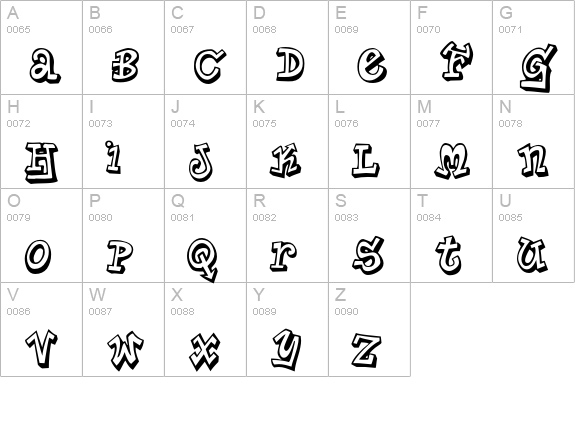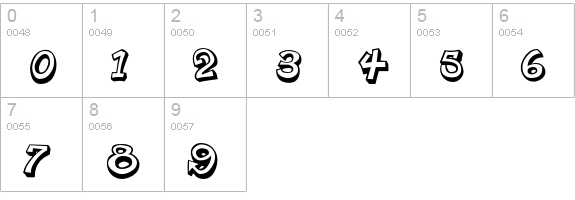
PlanetBenson Font Details
PlanetBenson is a stunning and versatile font that combines elegance with a touch of modernity. Its sleek lines and smooth curves make it perfect for a wide range of design projects, from logos and branding to invitations and advertisements. This font captures attention with its unique and eye-catching letterforms that exude confidence and sophistication. Every character is meticulously crafted to ensure legibility and readability at any size, making it suitable for both print and digital applications. What sets PlanetBenson apart is not only its impeccable design, but also the fact that it is available for free. Yes, you heard it right – this extraordinary font can be freely downloaded at FontsMarket.com. Whether you are a professional designer or an aspiring creative, you can now enhance your projects with this remarkable typeface without any cost. With PlanetBenson, you have the freedom to explore your creativity and bring your ideas to life. Its wide range of weights and styles gives you endless possibilities to play with, allowing you to create truly unique and captivating designs that leave a lasting impression. So why wait? Start using PlanetBenson today and experience the power of a high-quality font that is both visually appealing and freely accessible. Elevate your designs and make a statement with this exceptional typeface that is just a click away. Visit FontsMarket.com to download PlanetBenson for free and embark on a journey of design excellence.